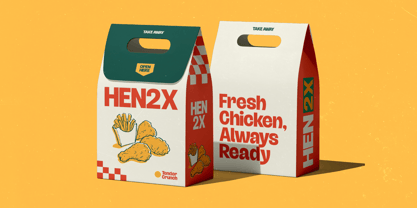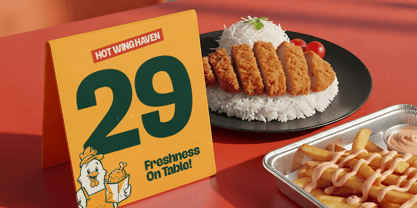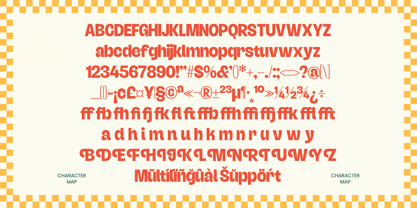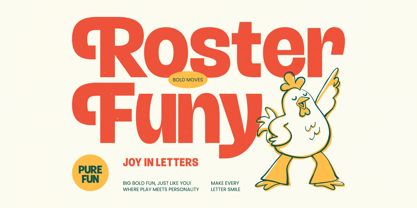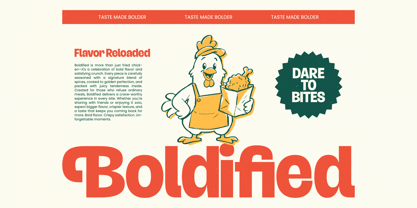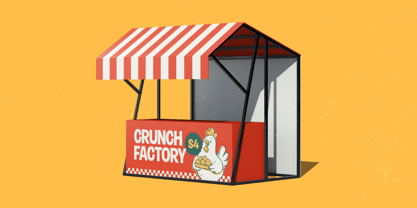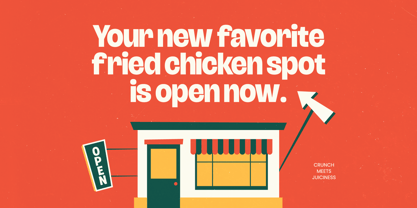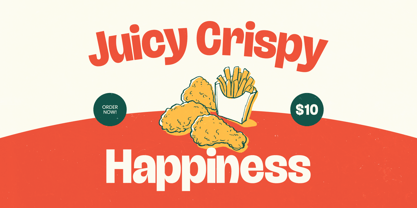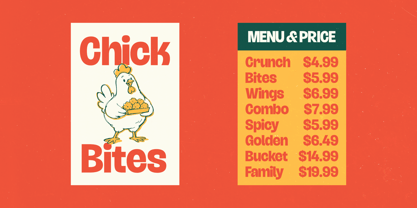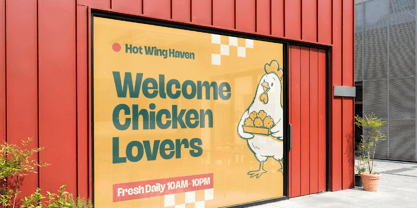
Roster Funy
La famille de polices Roster Funy a été conçue par Heru Utama Putra et publiée par Timelesstype Studio. Roster Funy contient 2 styles et options de package familial. En savoir plus sur cette famille
Elevate your brand’s visual identity with a typeface that demands immediate attention and radiates personality. Roster Funy Bold Sans Serif is a masterclass in bold typography, blending a retro-modern aesthetic with a playful, high-impact weight. This bold sans serif delivers an unmatched presence, making it the premier choice for designers looking to inject vibrant energy and distinctive character into their creative projects.